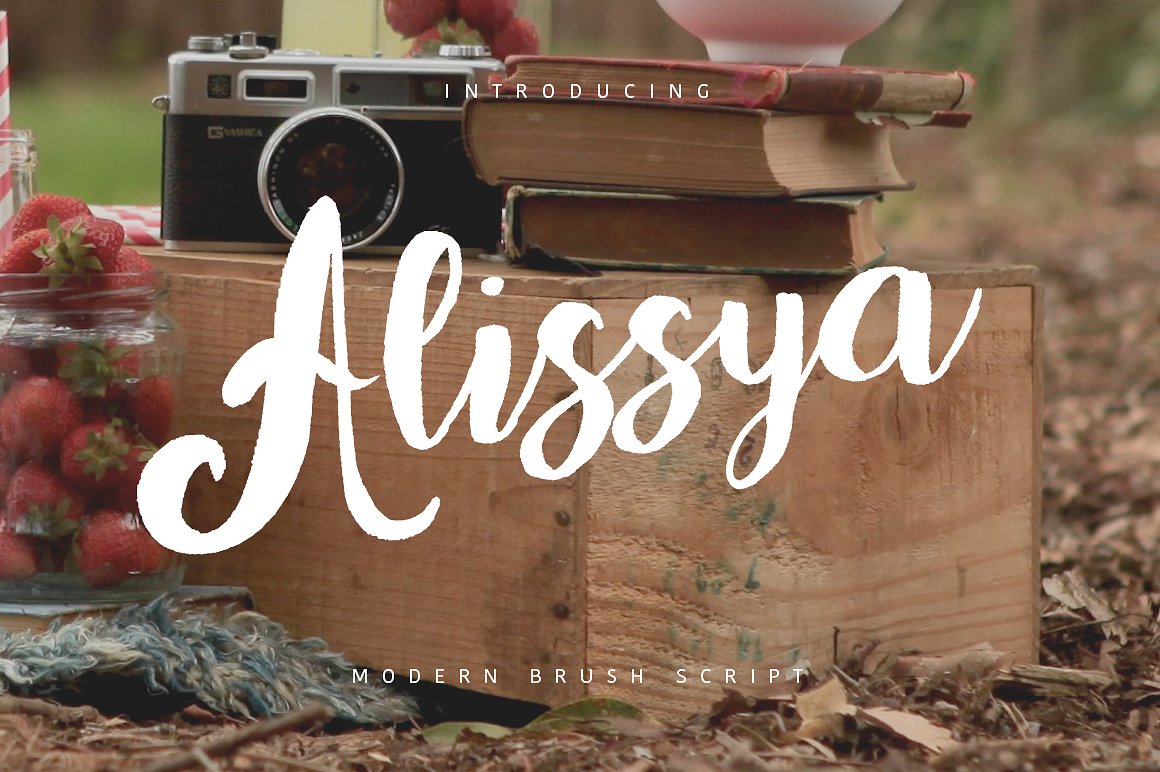
Alissya Script Font
Give your designs an authentic brush handcrafted feel. “Alissya Script” is perfectly suited to stationery, logo, typography quotes, magazine or book cover, website header, clothing, branding, packaging design and more.
| Designer Name: | Maulana Creative |
| Classification: | Handwritten Fonts, Script Fonts |